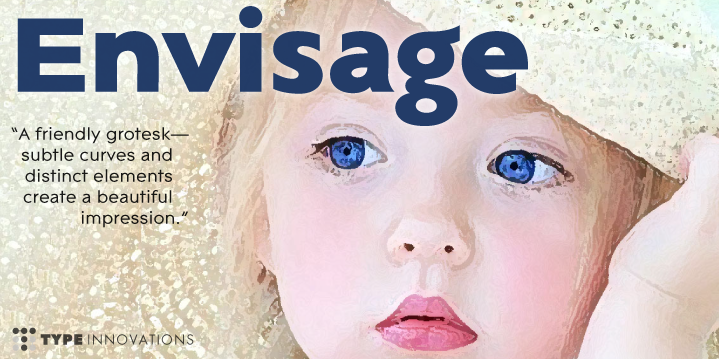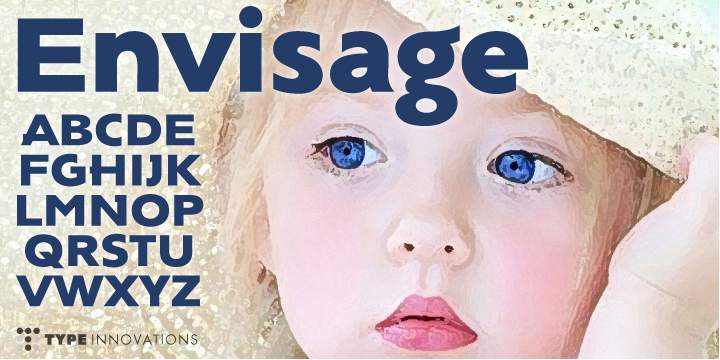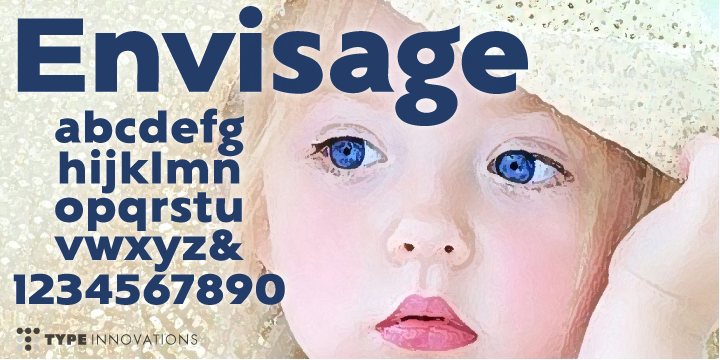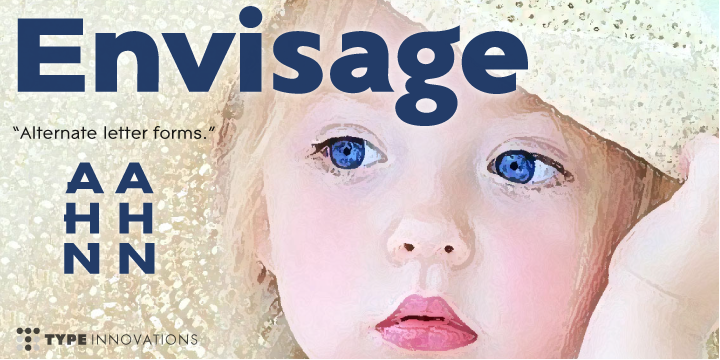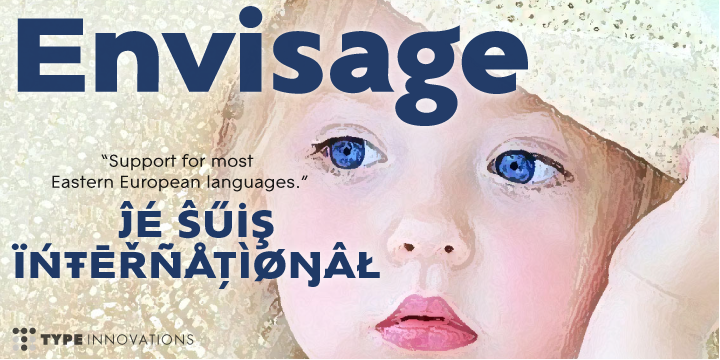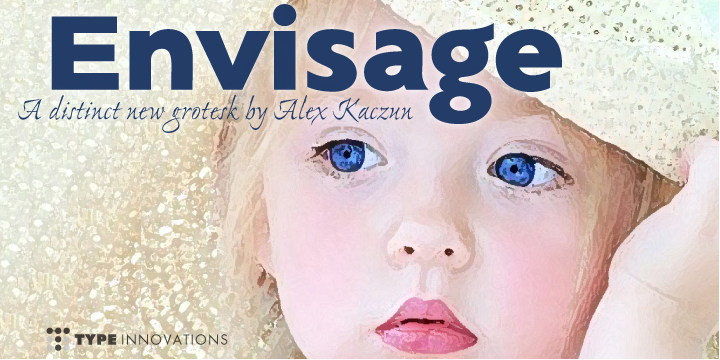
Envisage
Envisage is a distinctive new grotesk design by Alex Kaczun. Characterized by distinct details throughout as particularly visable in the capitals A, H and N. There is a more organic and natural feel to the overall design as in the sutle curves introduced in many of the lower case letter forms, specifically the a, h, m and n. And, especially evident in the warm overall curves within the l‘case g.
In addition, incorporating flexibility in form and function, Alex has also included alternate letter forms in this OpenType font; allowing the graphic designer a choice in the overall look and feel. Envisage has impact and zeal. It's a wonderful choice for a distinctively unique headline treatment, and works equally well in text in a large range of point sizes. Use this friendlier sans serif as an alternate to Futura and Gill Sans. We think you will like what you see.